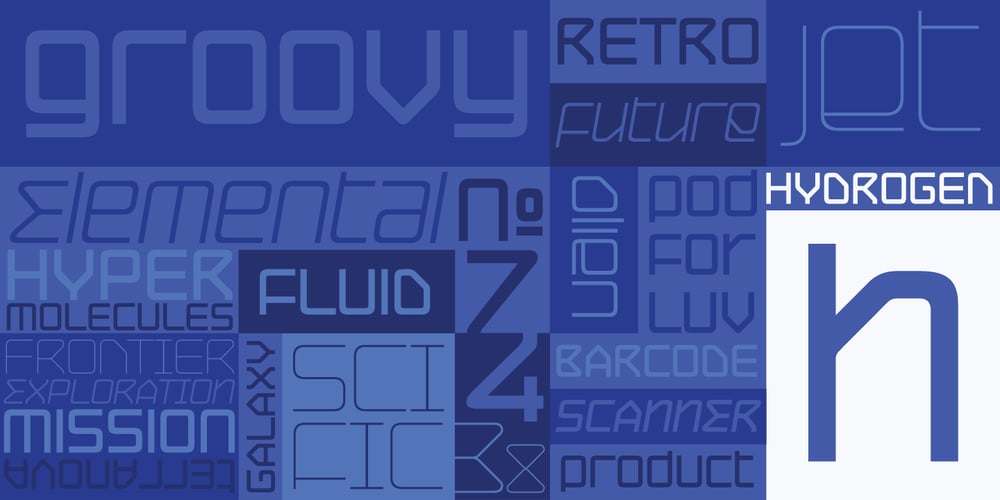
Hydrogen
Hydrogen font
Hydrogen Font Family was designed by Patrick Griffin and published by Canada Type. Hydrogen contains 24 styles and family package options. Hydrogen is a clean geometric unicase family that expresses the mechanics, expansive technologies and conflicted ethics of the rapidly changing 21st century. By popular demand, it is the round and streamlined counterpart of Oxygen. Coupled with the right measure of Oxygen, Hydrogen becomes water, the ace of elements — rhythmic, dynamic, ever-flowing, and understood by everyone. Hydrogen comes in three weights and corresponding italics. Round and crisp outlines cover plenty of expressive ground, and a lot of built-in alternates help your message transform, adapt, and reinvent itself many times over. It is the David Bowie of typefaces. Hydrogen is available in all popular font formats and for all common platforms. The Hydrogen character map boasts many, many alternates, and supports Western, Eastern and Central European Latin languages, as well as Baltic, Celtic/Welsh, Esperanto, Maltese, and Turkish.